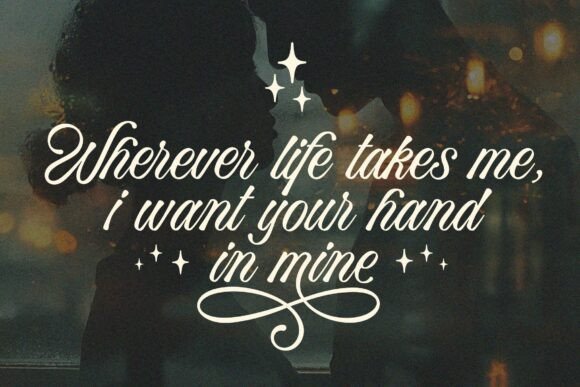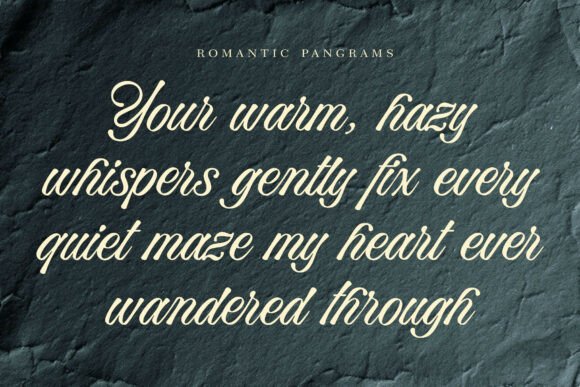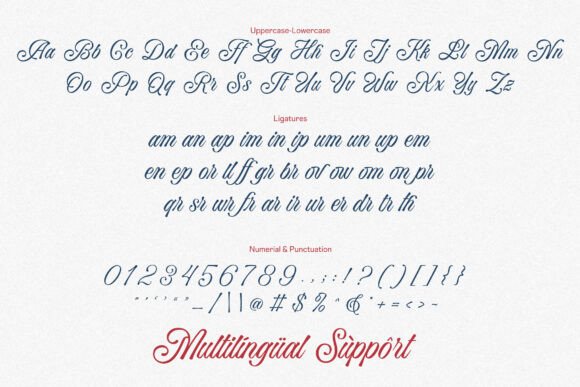
Introduction to Miraclin Font
Miraclin is an intensely romantic script font, handcrafted with dramatic, flourishing swashes and elegant, sweeping curves for heartfelt moments.
This luxurious typeface is characterized by its high-contrast strokes and exaggerated loops, instantly conveying a sense of ornate, vintage calligraphy and high-end charm The Miraclin font is designed with beautiful alternate characters and ample swashes, allowing for sophisticated and highly customized titles and logotypes.
Key Features of Miraclin Font